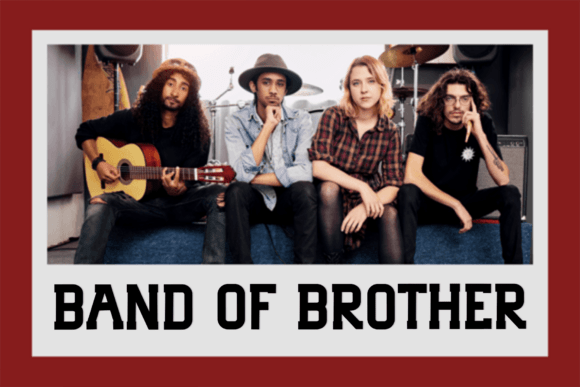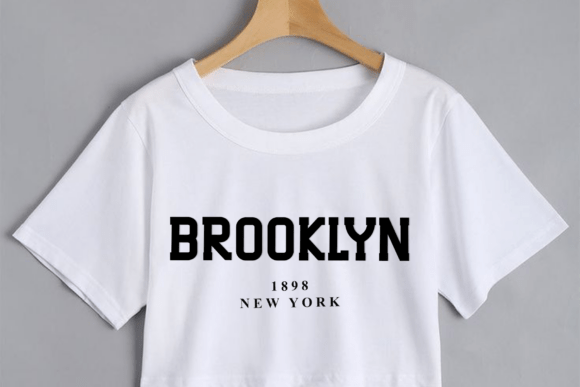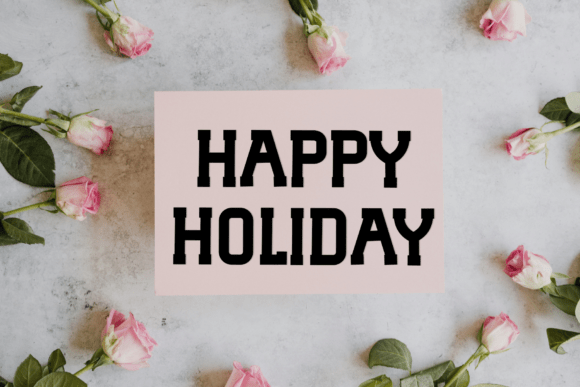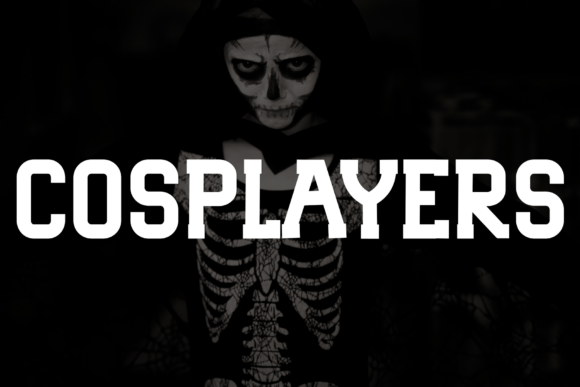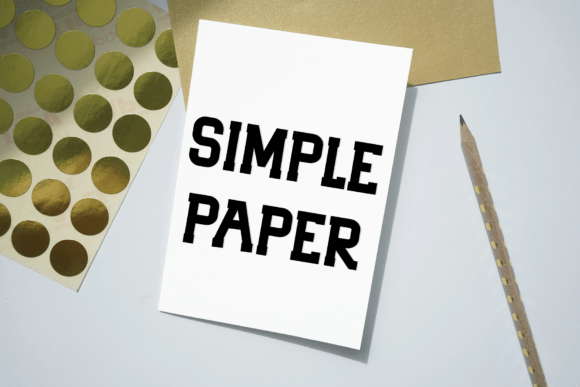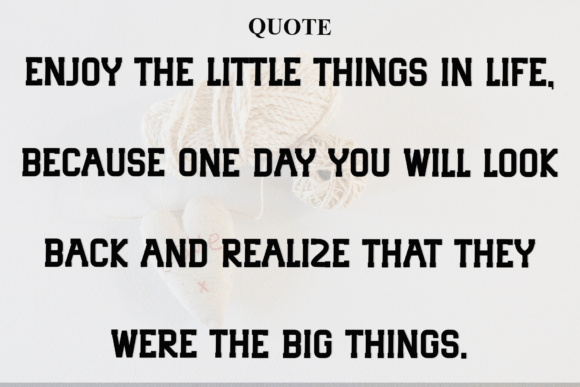
Introduction to First Point Font
First Point is a casual and creative font that exudes warmth and friendliness.
Key Features of First Point Font
Why Choose First Point Font?
First Point Font offers exceptional quality and versatility, making it a valuable addition to your design toolkit. Whether you’re creating for personal projects or commercial use, First Point Font delivers professional results.